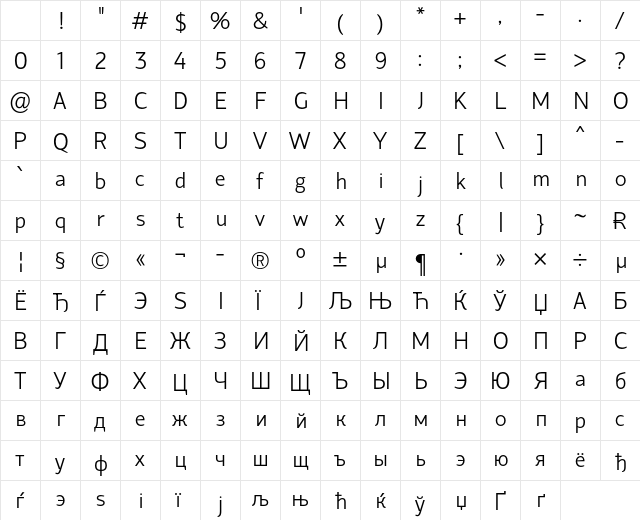
Complete Hattori Hanzo Light glyph index. Displaying only characters natively supported by Hattori Hanzo Light font.
Hattori Hanzo is a composed and adaptable typeface that performs quietly and consistently across a wide range of design contexts. Its slender proportions lend an understated elegance to any composition.
Who designed the Hattori Hanzo Light font?